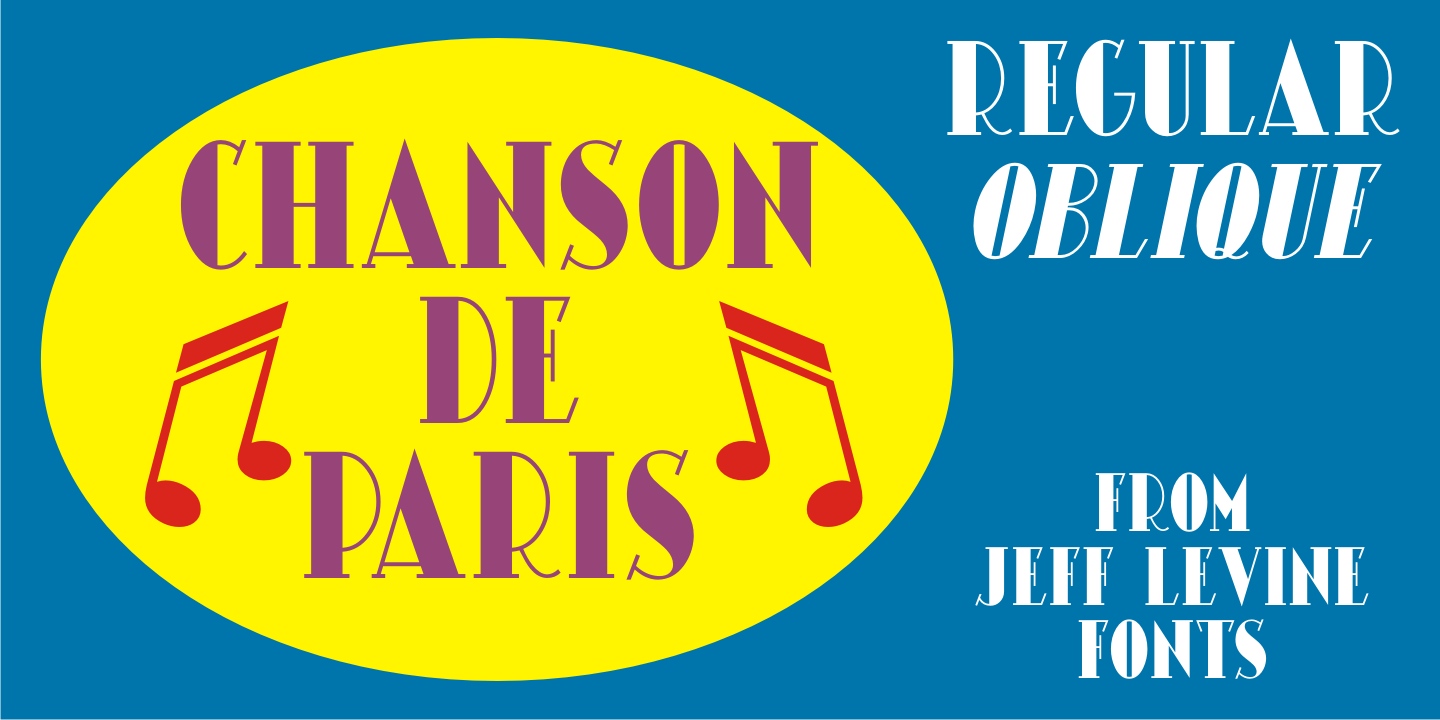
Chanson De Paris
A couple of pieces of sheet music from France [circa 1925] offered the inspiration for Chanson De Paris JNL (Song of Paris), which is available in both regular and oblique versions.
This hand lettered Art Nouveau style features a unique take on thick-and-thin lettering which foreshadows the Art Deco typefaces to come during the 1930s.
Chanson De Paris JNL Oblique
Chanson De Paris JNL Regular
Chanson De Paris by Jeff Levine Fonts